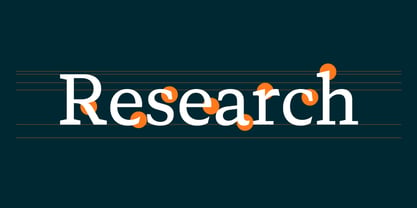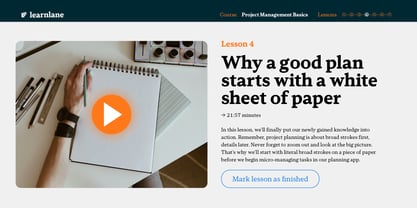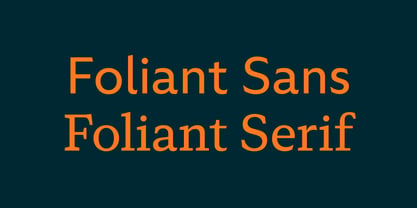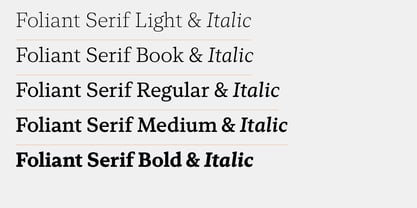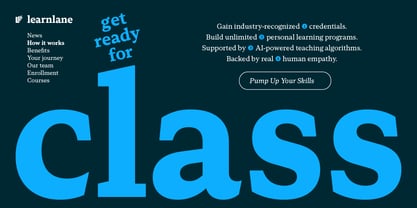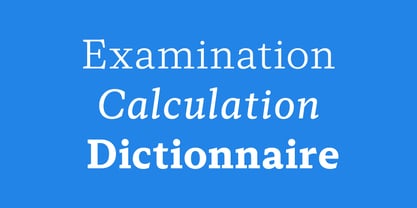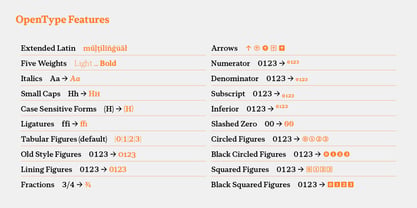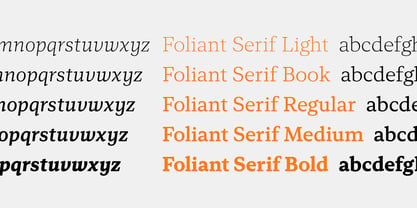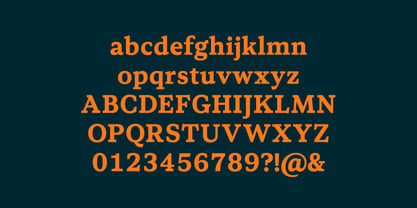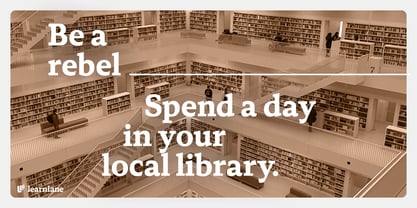
Foliant Serif
The Foliant Serif Font Family was designed by Moritz Kleinsorge and published by Identity Letters. Foliant Serif contains 10 styles and family package options. More about this family
What does a typeface for knowledge work look today? We investigated. The result: knowledge needs to be branded. A knowledge worker’s font needs to convey trust, poise, and elegance. It must be recognizable but never distracting as soon as you start reading. This is what we sought to achieve with our Foliant superfamily. Foliant Serif is a text face with a tilted axis and flat, unbracketed serifs. It excels at body copy and immersive reading. In large sizes, its crisp details kick in, giving titles and headlines an erudite appeal. All styles of Foliant Serif work well with the corresponding weights of Foliant Sans. They’ll have the same color and similar proportions. 10 weights, 900+ glyphs.